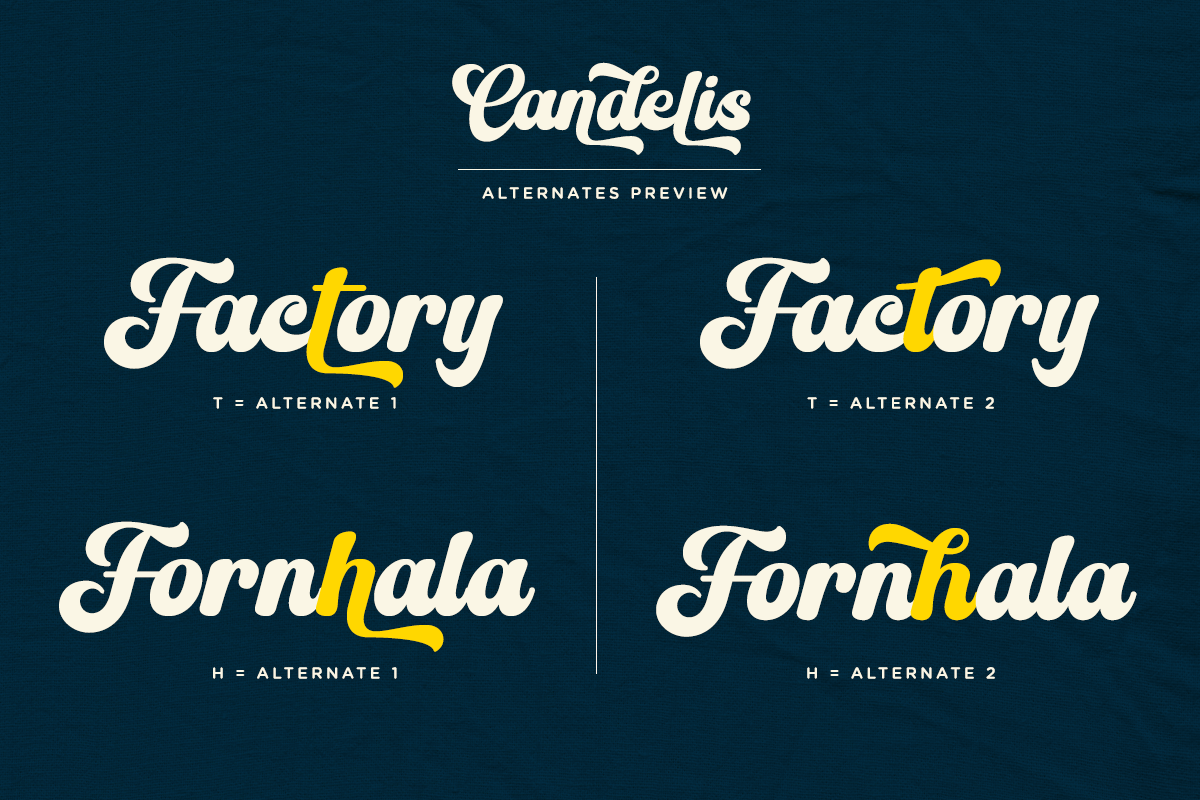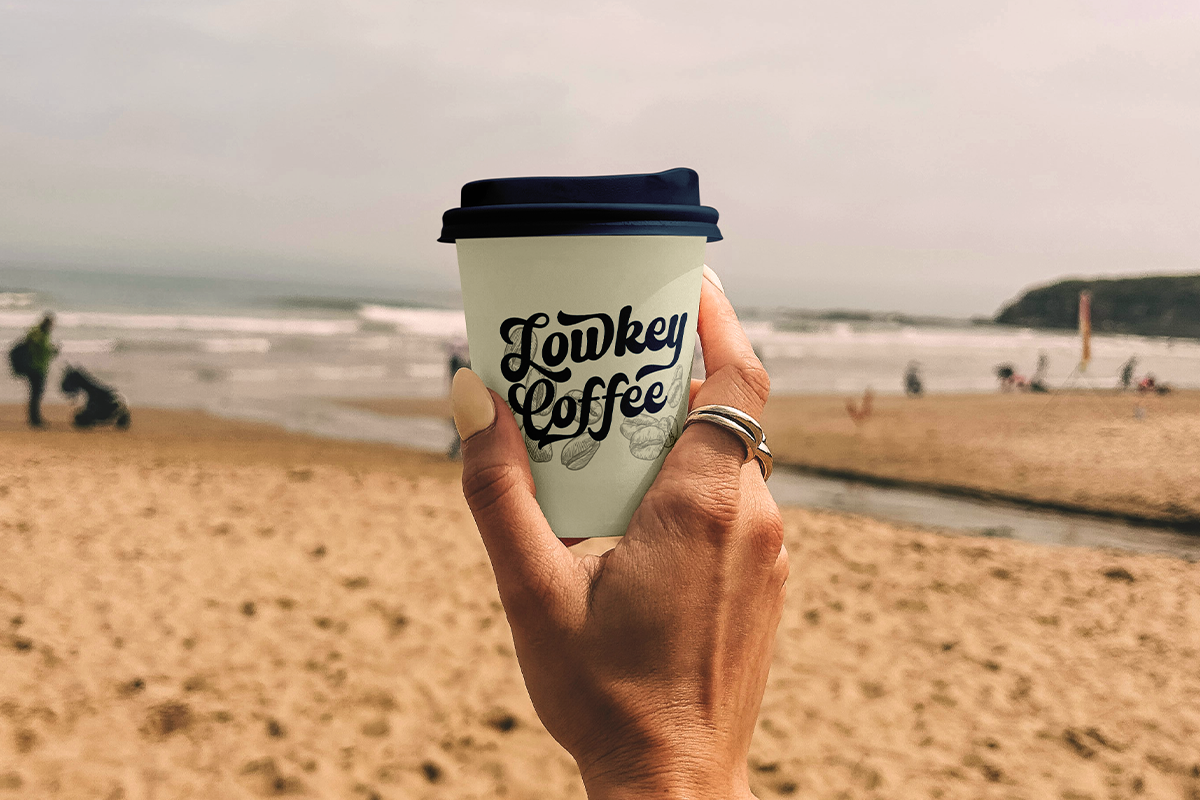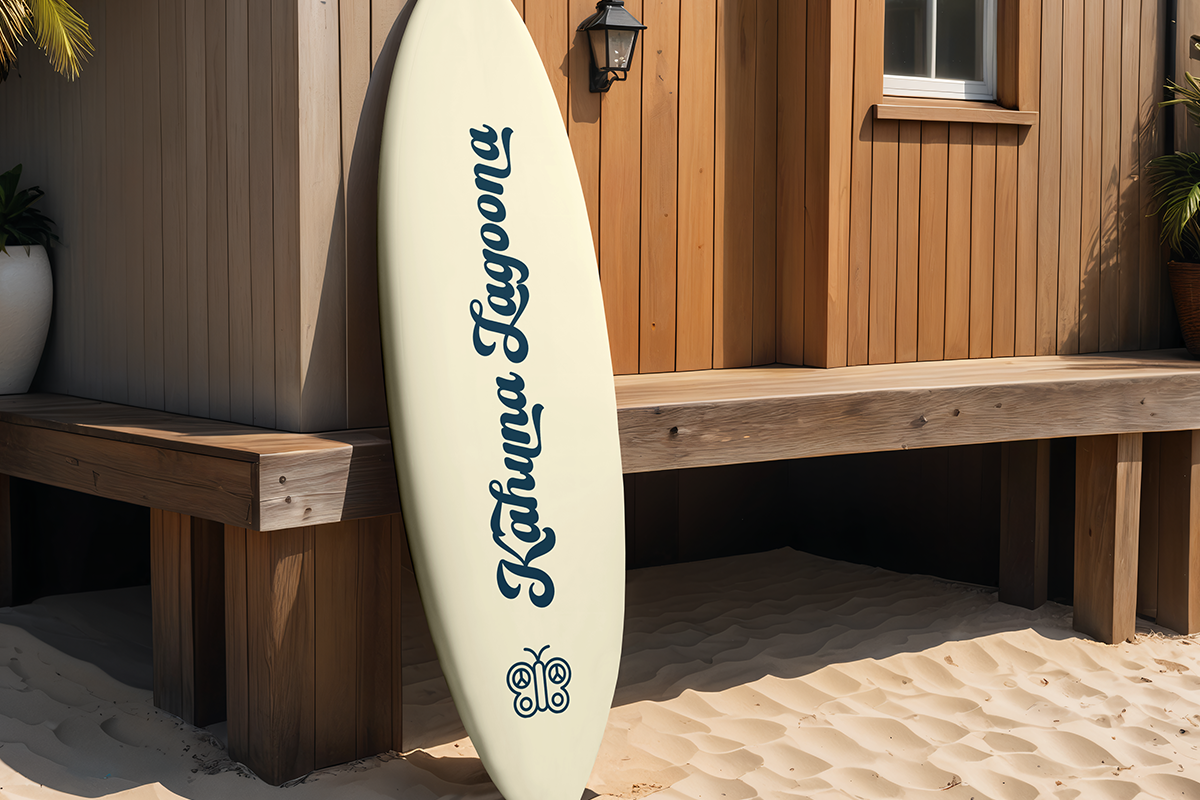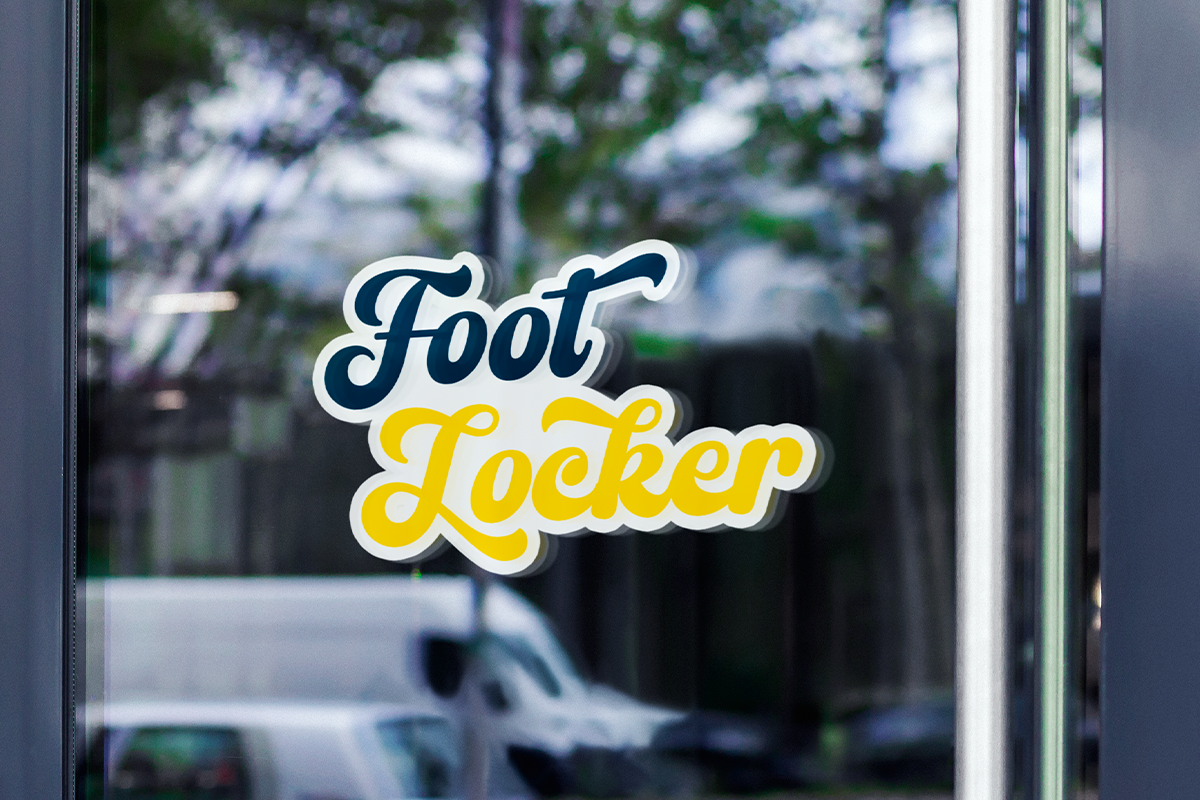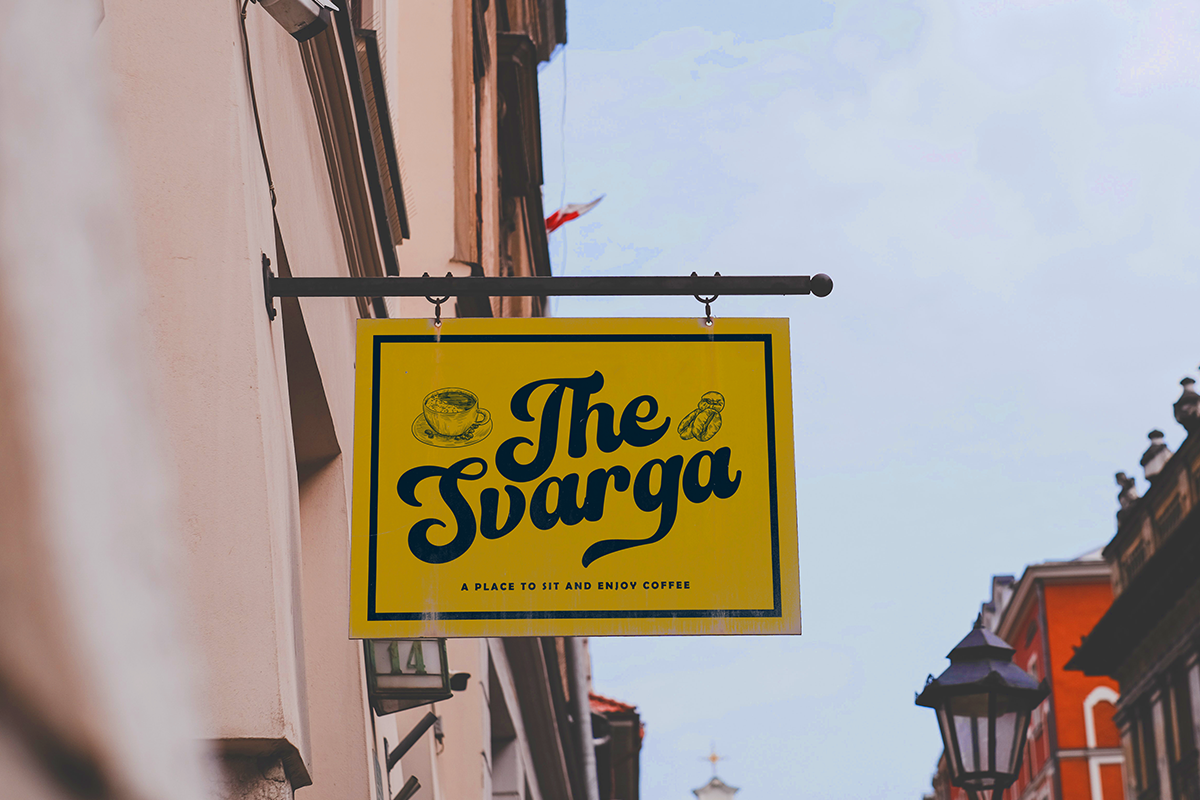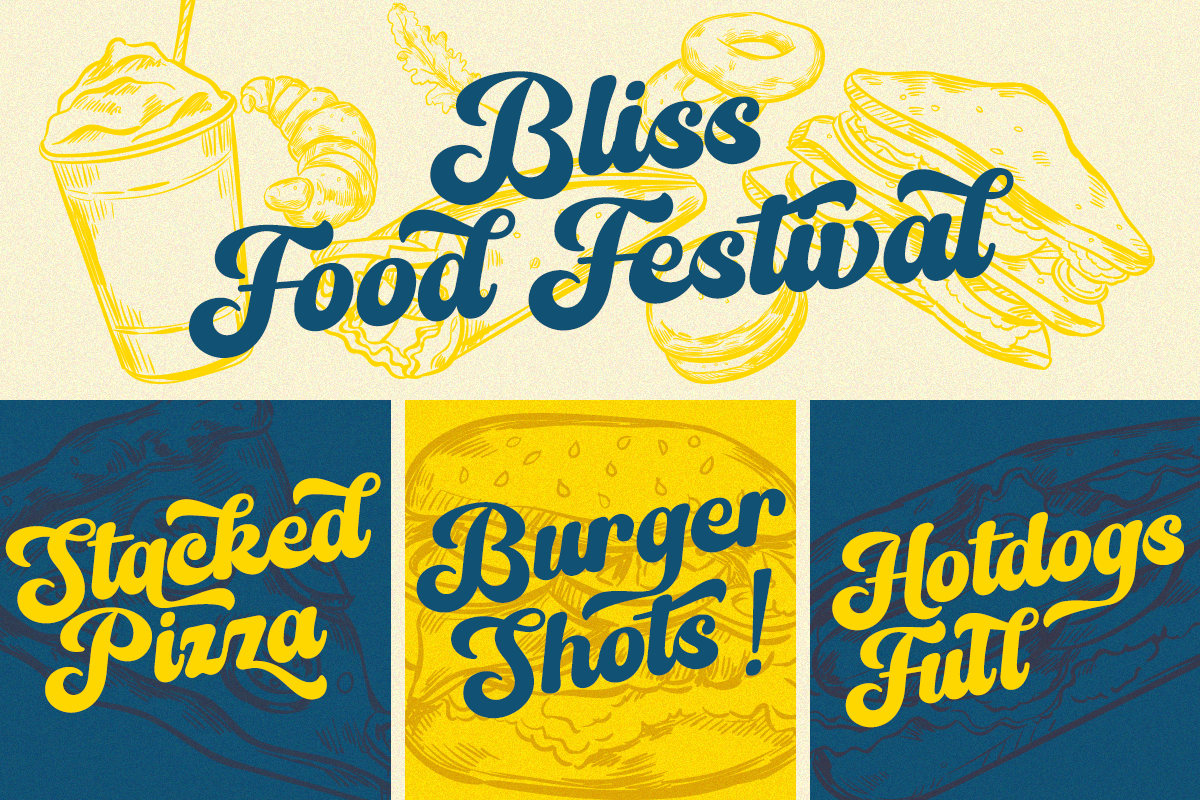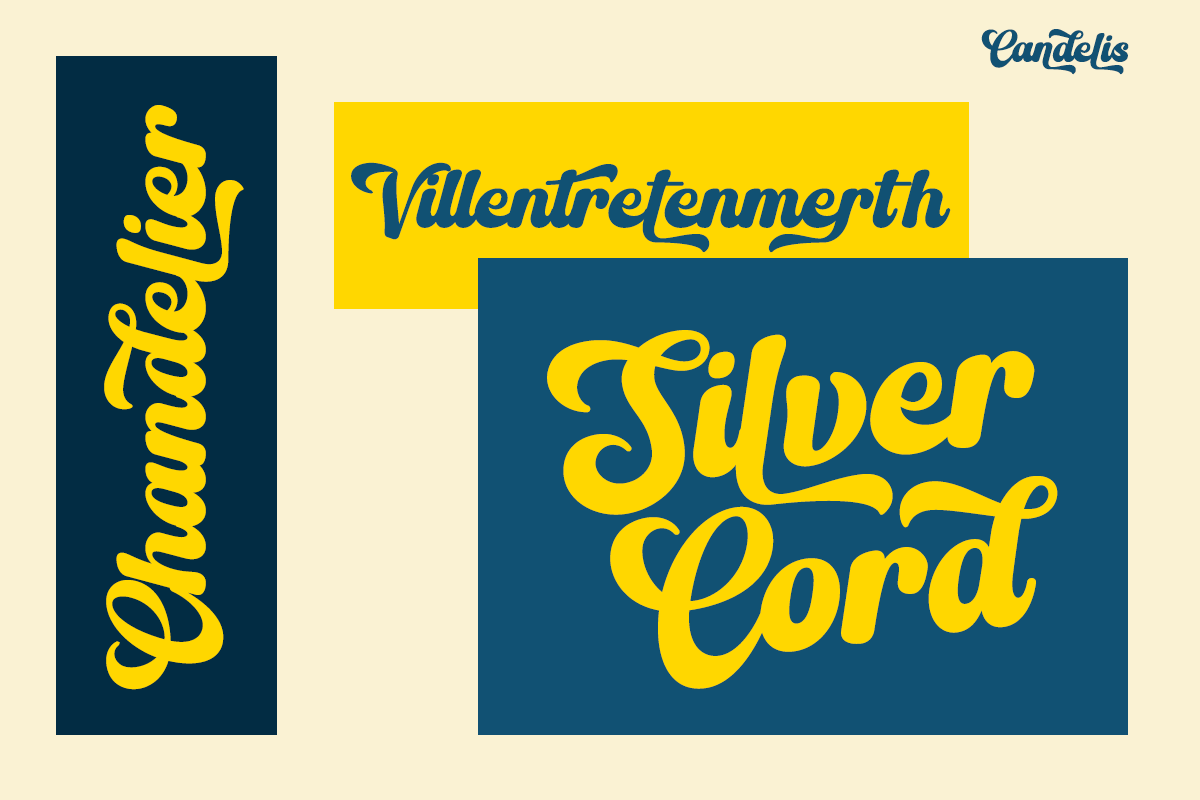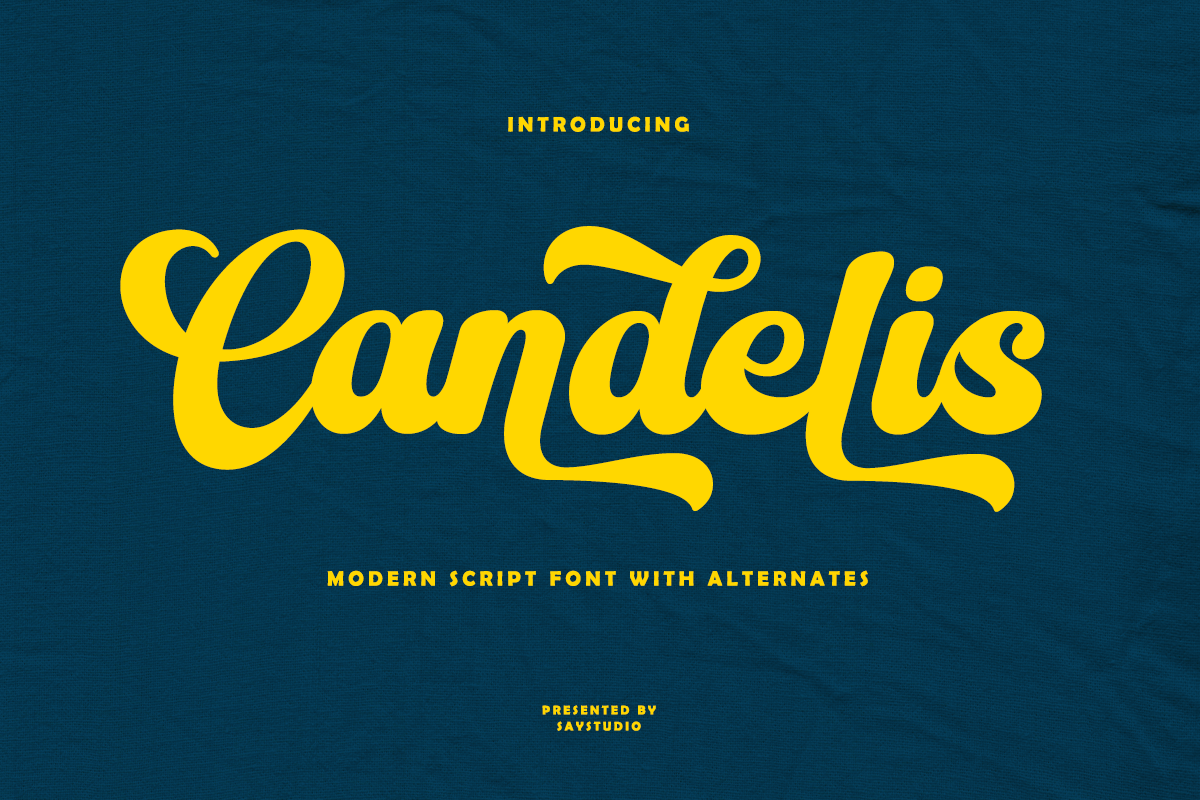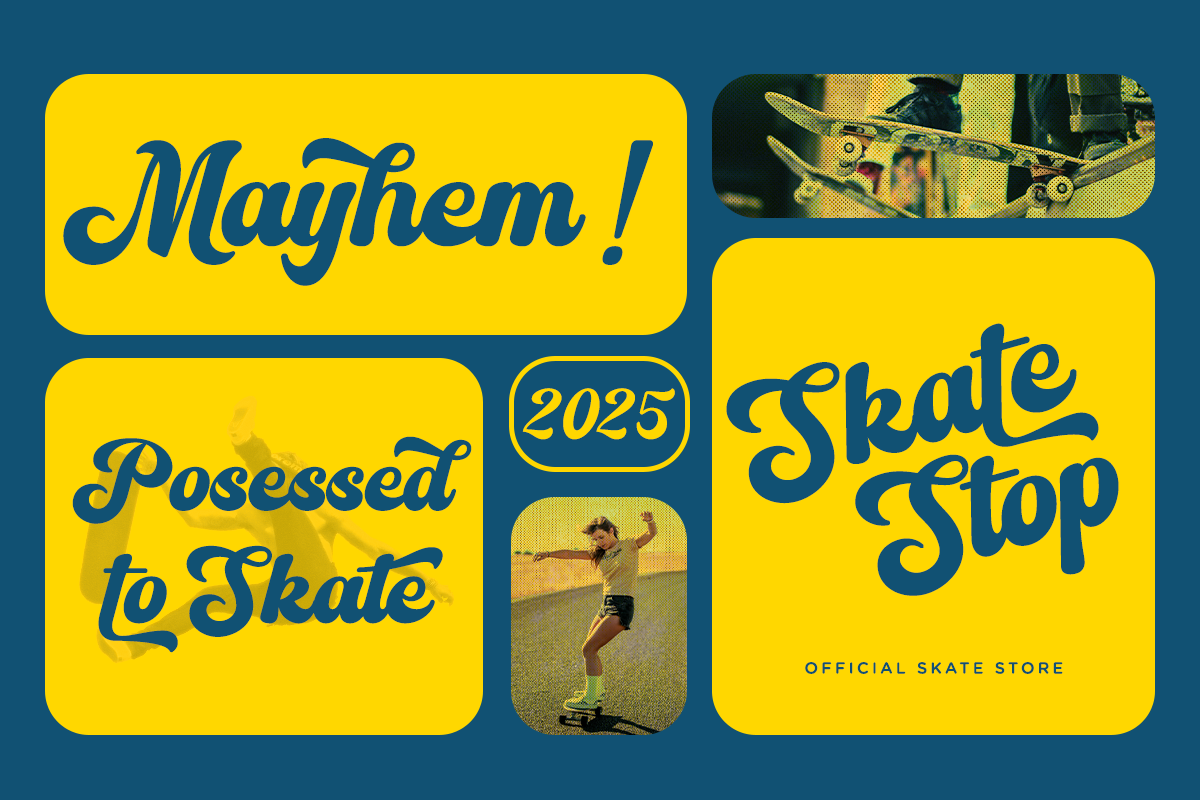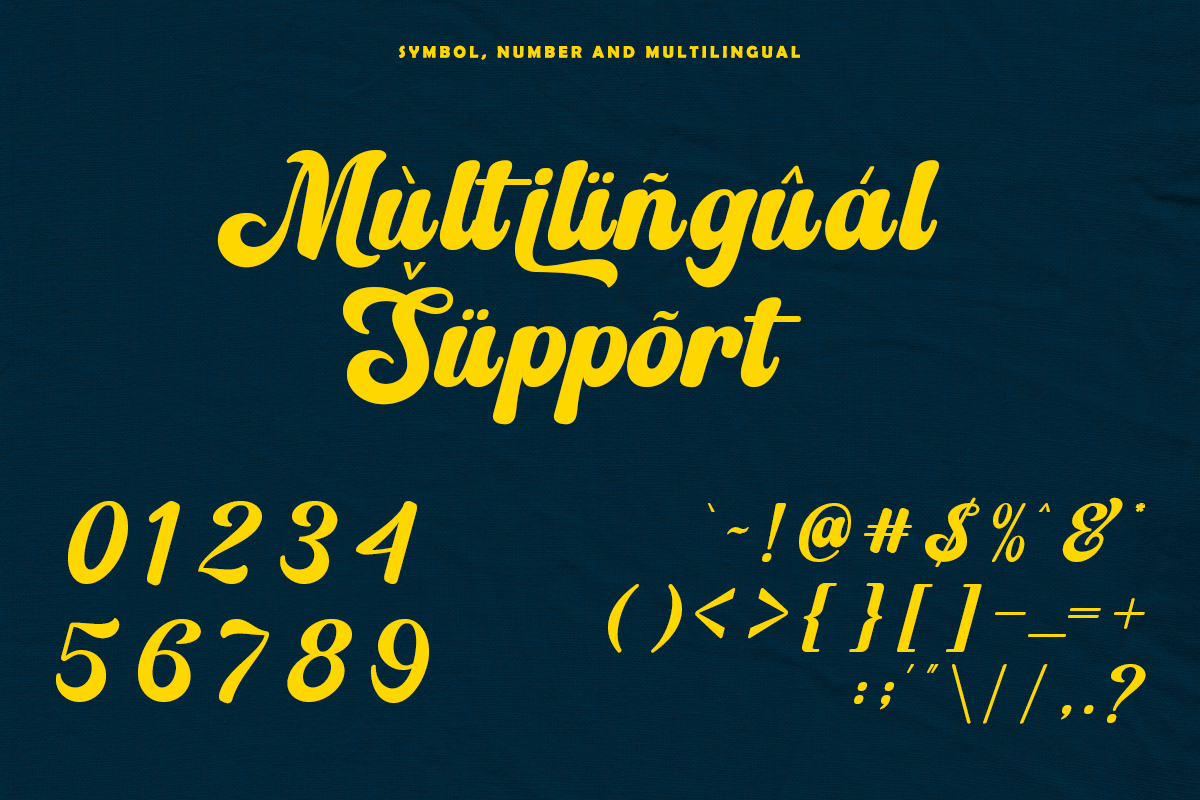
Candelis - Modern Script Font
Candelis is a stylish font It has both modern and retro look. Comes with alternatives and ligatures, helps to create stunning logos, quotes, posts, blog posts. branding projects, magazine imagery, wedding invitations, and much more.